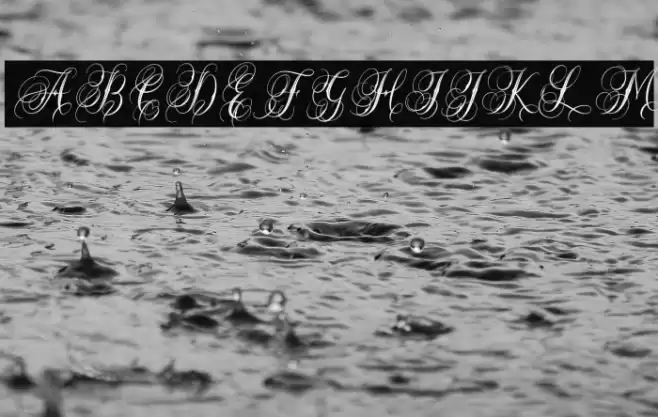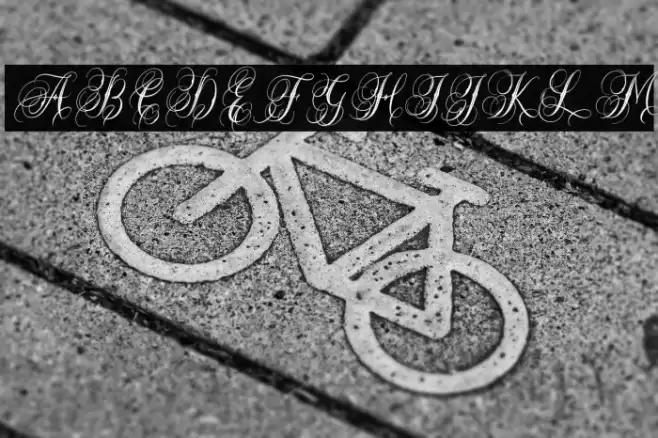
SnakeFangsFREE Font
SnakeFangsFREE Description
This font features an elaborate and decorative script style, characterized by intricate swirls and flourishes that give it a highly ornamental appearance. The uppercase letters are particularly embellished, with each character extending into elegant loops and curves, creating a sense of sophistication and grandeur. The lowercase letters maintain a more restrained yet still decorative style, with smooth, flowing lines that enhance readability while retaining a sense of elegance. The numerals and special characters are designed to match the ornate style of the alphabet, ensuring a cohesive and visually appealing look across all characters.
An ornate and decorative script font with intricate swirls and flourishes from Uncategorized fonts.
- Font: SnakeFangsFREE
- Proposed Projects: Ideal for wedding invitations, luxury branding, elegant packaging, and decorative headings.
- Use Case: Headlines, Logos, Invitations